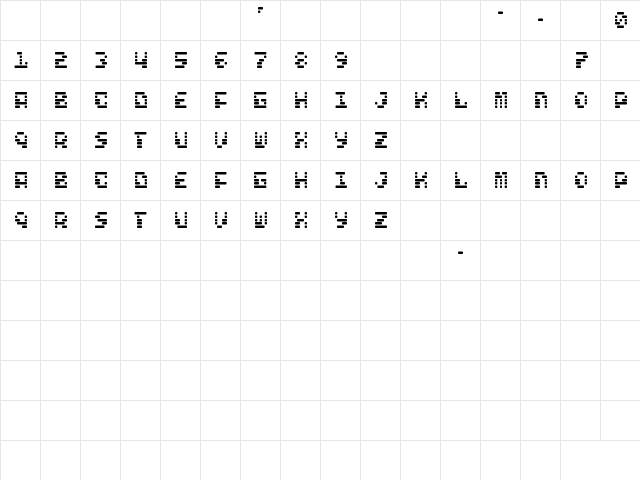
Freelance Kamchatka Regular
Design Context for Freelance Kamchatka Typeface
Freelance Kamchatka is a composed and adaptable typeface that performs quietly and consistently across a wide range of design contexts.